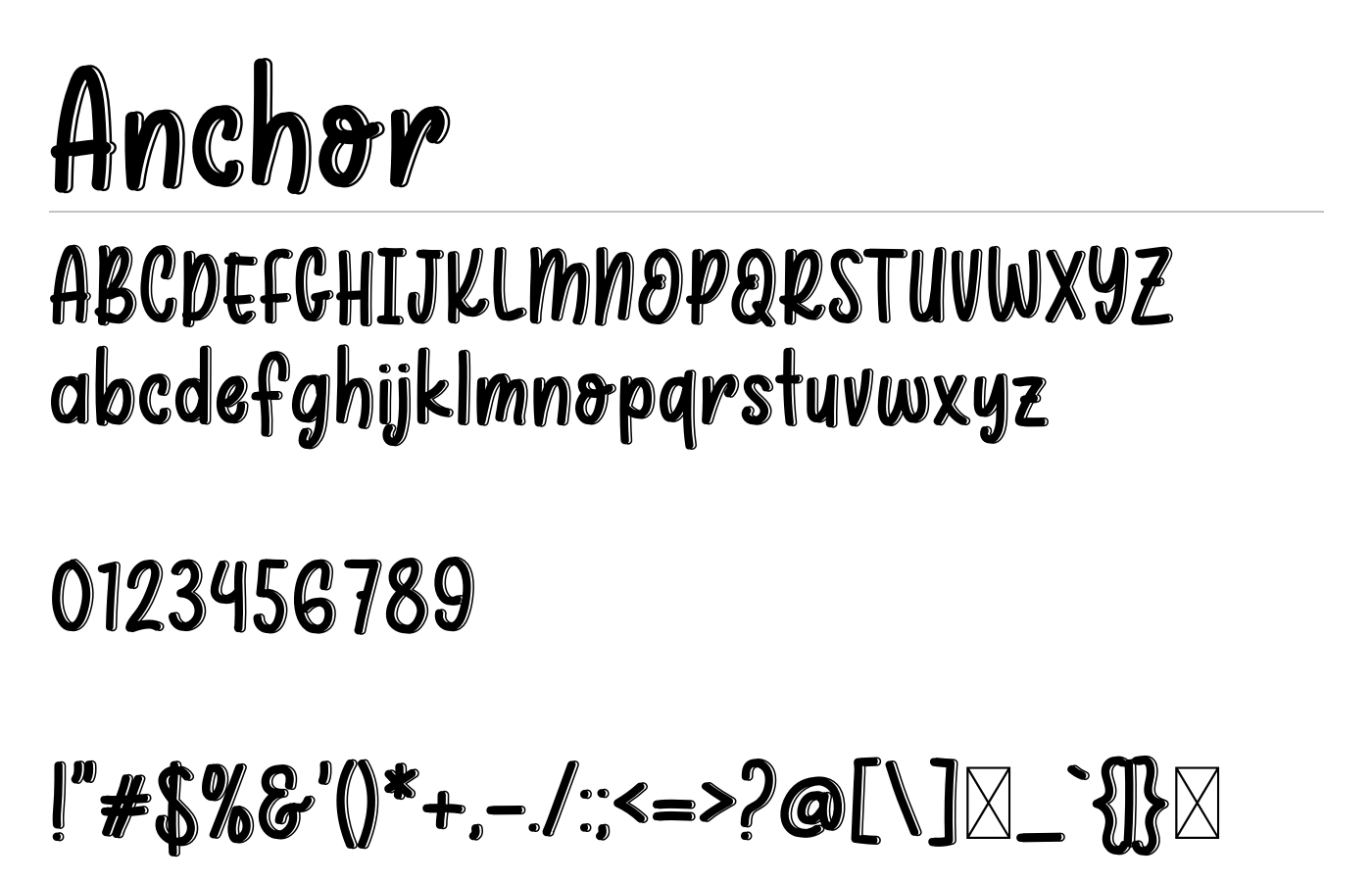
Anchor Font is a playful, hand-drawn sans serif with a casual and friendly feel. Its upright, slightly condensed letterforms feature rounded edges and a consistent medium stroke weight, making it lively yet easy to read. This font works well in creative branding, fun packaging, and informal headlines where a personal touch is desired.
Anchor Font
About Anchor Font